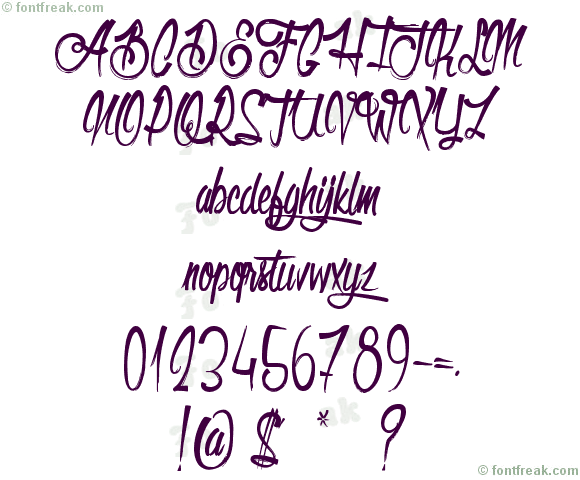
Olympic Branding
The Olympic Branding font by Maelle.K is a captivating display typeface that embodies a modern yet elegant aesthetic. This font is characterized by its unique blend of flowing cursive strokes and bold lettering, making it an ideal choice for projects that seek to convey a sense of prestige and sophistication. The stroke weight varies throughout the characters, creating an engaging contrast that draws attention while maintaining readability. The generous spacing between the letters enhances its overall clarity, allowing it to stand out in any context.
This font is perfect for a variety of creative applications. It shines in wedding invitations, where its elegant curves can evoke romance and celebration. Additionally, it is an excellent choice for branding materials, such as logos and business cards, especially for small businesses looking to make a lasting impression. The Olympic Branding font also works well on movie posters, where its distinctive style can capture the essence of a film's theme. Furthermore, it can be utilized in event flyers and promotional materials, providing a touch of class that appeals to potential attendees.
What sets the Olympic Branding font apart is its ability to seamlessly blend elegance with a contemporary flair. This makes it a versatile addition to any designer's toolkit, ensuring that it can be employed across a range of creative endeavors while leaving a memorable impact on the audience.